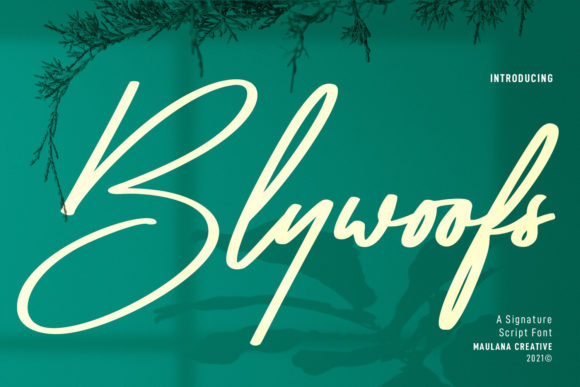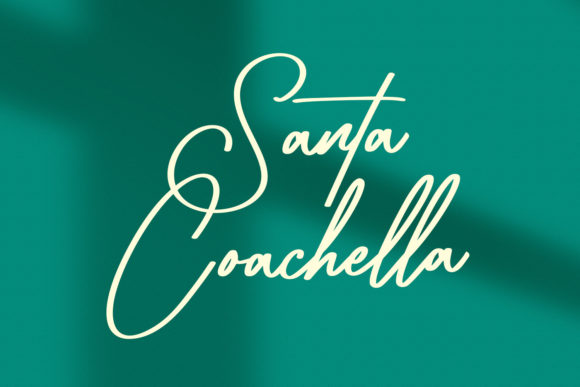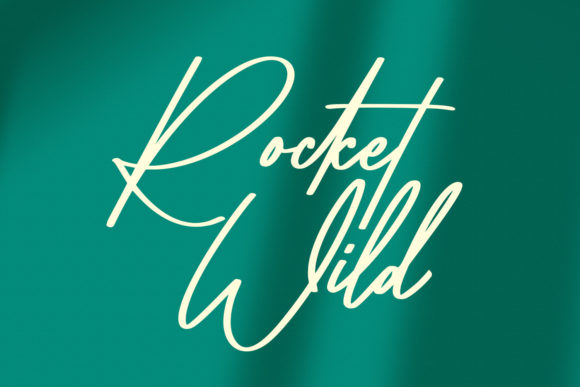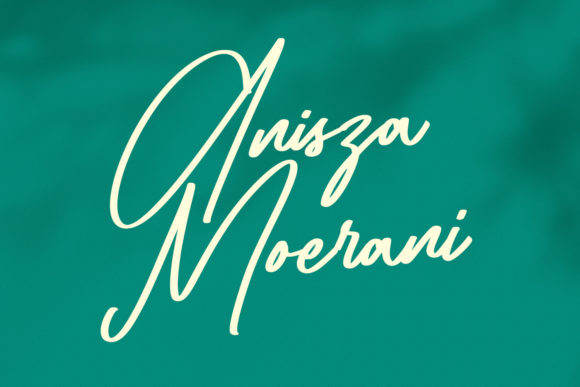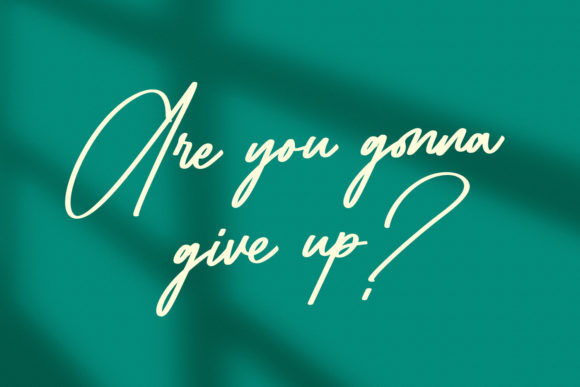
Blywoofs Font
About Blywoofs Font
Blywoofs is a fancy signature script font. With regular felt-tip stroke, this type of font is good for logo design, social media, movie titles, books titles, and many more. Make a stunning work with Blywoofs font.